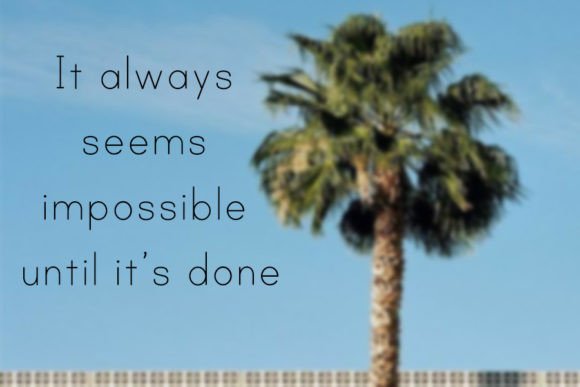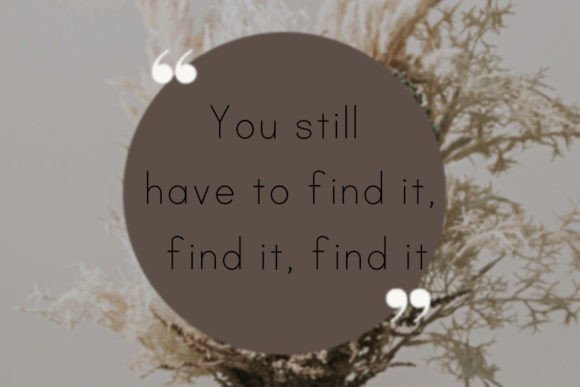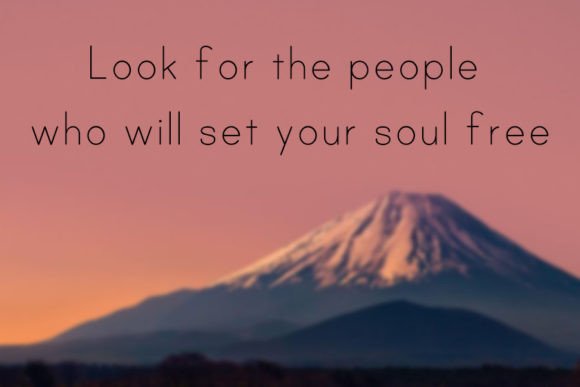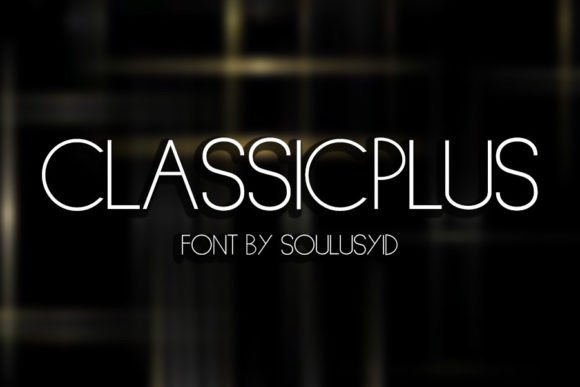
Introducing Classicplus Font: Elevate Your Designs with a Modern Twist
In the world of typography, fonts play a crucial role in conveying the tone and aesthetic of a design. For designers and crafters looking to add a touch of modernity and sophistication to their work, the Classicplus font is an excellent choice. This attractive and modern sans-serif font is perfect for creating visually appealing designs that capture the attention of your audience.
What is Classicplus Font?
Classicplus is a sleek and contemporary sans-serif font that boasts a unique blend of simplicity and elegance. Its clean lines, rounded edges, and balanced proportions make it an ideal choice for a wide range of design applications. Whether you’re working on a book cover, magazine layout, social media post, or invitation, Classicplus font is sure to elevate your design to the next level.
Key Features of Classicplus Font
- Modern and Catchy Vibe: Classicplus font exudes a modern and catchy vibe that is perfect for designs that require a fresh and contemporary look.
- Versatile: This font is highly versatile and can be used for a variety of design projects, including book covers, magazines, social media posts, invitations, and more.
- Easy to Read: The clean and simple design of Classicplus font makes it easy to read, even at small font sizes.
- Highly Legible: The font’s balanced proportions and rounded edges ensure that it is highly legible, making it perfect for body text and headings.
Design Applications for Classicplus Font
Classicplus font is an excellent choice for a wide range of design applications, including:
- Book Covers: Add a touch of modernity to your book covers with Classicplus font, perfect for fiction, non-fiction, and genre-bending titles.
- Magazines: Use Classicplus font to create visually appealing magazine layouts that are sure to grab the attention of your readers.
- Social Media Posts: Elevate your social media posts with Classicplus font, perfect for creating engaging and shareable content.
- Invitations: Add a touch of elegance to your invitations with Classicplus font, perfect for weddings, parties, and other special events.
Tips for Using Classicplus Font
To get the most out of Classicplus font, here are some tips to keep in mind:
- Experiment with Font Sizes: Classicplus font looks great at a variety of font sizes, so don’t be afraid to experiment to find the perfect size for your design.
- Pair with Other Fonts: Classicplus font pairs well with other sans-serif fonts, so consider combining it with other fonts to create a unique and visually appealing design.
- Use for Headings and Body Text: Classicplus font is highly legible, making it perfect for both headings and body text.
In conclusion, Classicplus font is an excellent choice for designers and crafters looking to add a touch of modernity and sophistication to their work. Its clean lines, rounded edges, and balanced proportions make it an ideal choice for a wide range of design applications. With its versatility, readability, and legibility, Classicplus font is sure to elevate your designs to the next level.